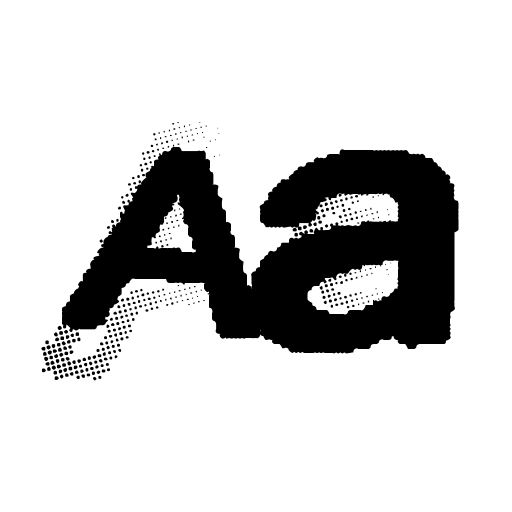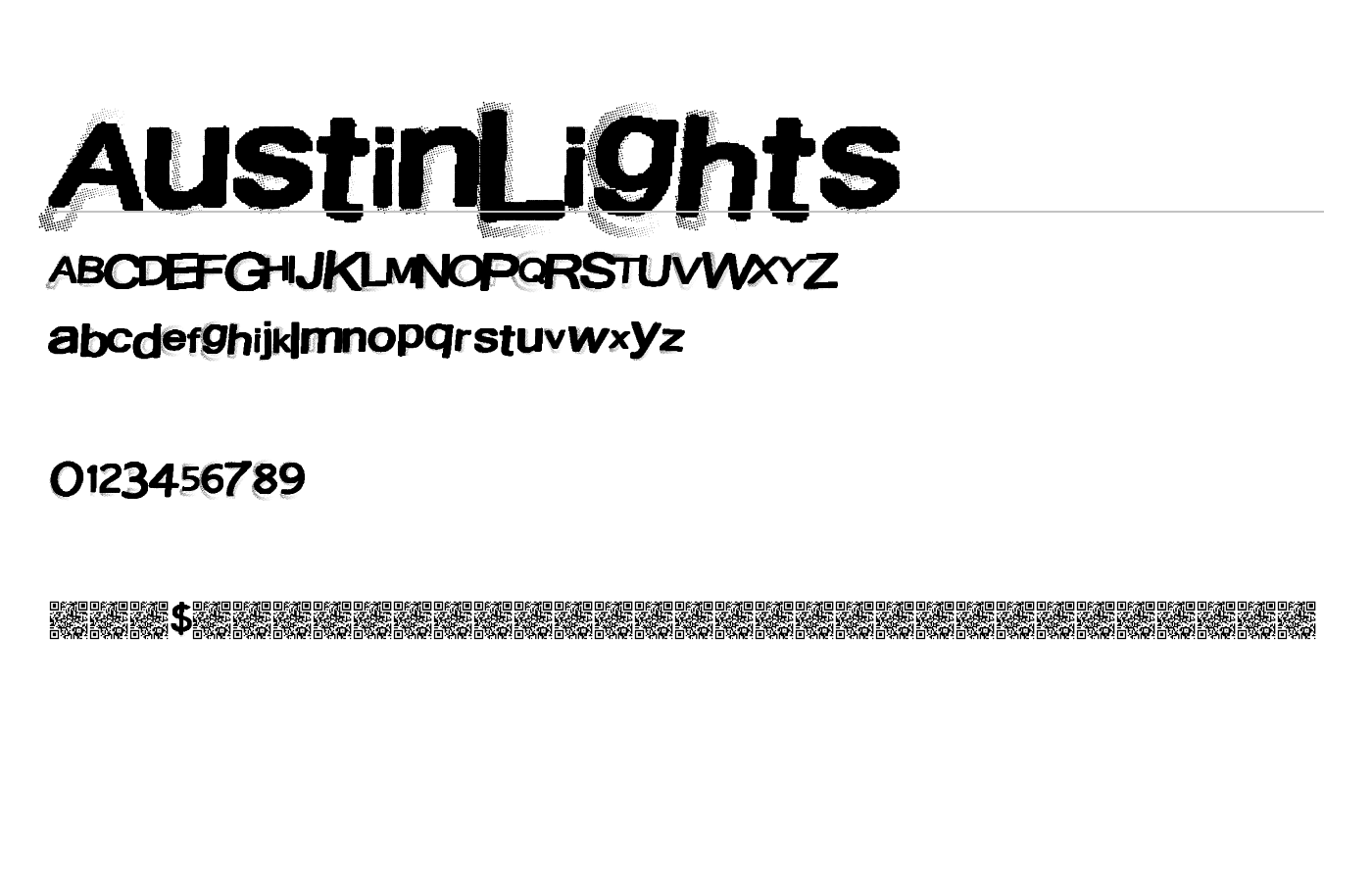
AustinLights is a playful and informal sans serif font with a slightly condensed width and moderate weight, characterized by its quirky, irregular letter shapes and subtle hand-drawn feel. Its uneven strokes and casual style lend it a friendly and approachable personality, making it ideal for creative branding, fun headlines, and projects that seek a lively, personal touch. This font works well in contexts where a relaxed, inviting tone is desired, such as children’s products, casual invitations, or artistic posters.
AustinLights Font
About AustinLights Font